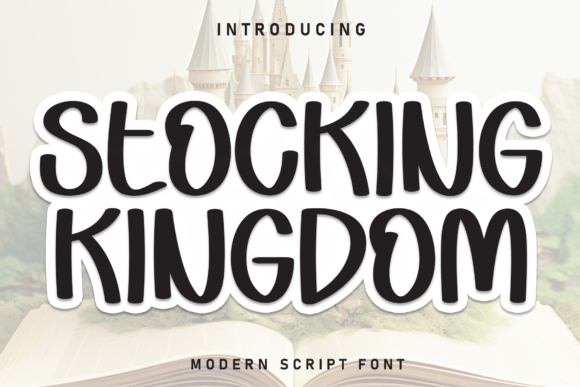
Stocking Kingdom: The Charming Handwritten Display Font
There's a special kind of magic in a font that feels both genuinely sweet and playfully authentic, and that's exactly what you'll discover with Stocking Kingdom. This charming handwritten display typeface is designed to inject an immediate sense of joy and warmth into any creative project, making it a delightful asset for designers and crafters alike.
At its heart, Stocking Kingdom is a premium font that balances a whimsical, hand-lettered aesthetic with clean, modern typography. It's not just a script font; it's a versatile creative tool that can elevate designs across numerous applications. The carefully crafted letterforms offer a friendly and approachable vibe, ensuring your message is conveyed with personality and visual appeal.
Where Can This Display Font Shine?
The true value of a great typeface lies in its versatility. Stocking Kingdom is particularly well-suited for projects that aim to feel personal, joyful, and engaging. Consider using it for:
- Brand Identity & Logo Design: Create a memorable logo for a boutique, bakery, children's brand, or lifestyle blog that needs a friendly, approachable feel.
- Editorial & Packaging Design: Add standout headlines to magazine layouts, book covers, or product packaging, especially for gourmet goods, artisan crafts, or gift items.
- Invitations & Stationery: From elegant wedding invitations to heartfelt birthday cards, this font adds a touch of handcrafted sincerity.
- Digital & Social Media Graphics: Design eye-catching quotes, Instagram stories, YouTube thumbnails, and website banners that stop the scroll and feel authentically engaging.
- Poster & Merchandise Design: Bring life to event posters, tote bags, mugs, and apparel with typography that feels fun and friendly.
Tips for Choosing and Using Your Font
When selecting a creative font like Stocking Kingdom, a few practical considerations will help you get the most out of your design assets. First, always check the readability at the size you intend to use it. While perfect for display purposes, ensure your specific text remains clear. Next, match the mood of your project; its playful sweetness is ideal for joyful themes but may not suit ultra-corporate or minimalist aesthetics.
Effective font pairing is key. Stocking Kingdom often pairs beautifully with a simple, clean sans-serif font for body text, creating a balanced and professional presentation. Before finalizing your design, review the font's complete character set and available styles—like alternate letters or ligatures—to enhance your layout. Finally, always verify the license of your font download to ensure it covers your intended use, whether for personal projects or commercial work.
Choosing the right typeface is a fundamental step in achieving visual consistency and strengthening brand recognition. A well-designed font like Stocking Kingdom does more than just display words; it conveys emotion, sets a tone, and adds a layer of professional polish that resonates with your audience. By thoughtfully integrating it into your workflow, you can give life to projects that are not only visually cohesive but also dripping with personality and joy.